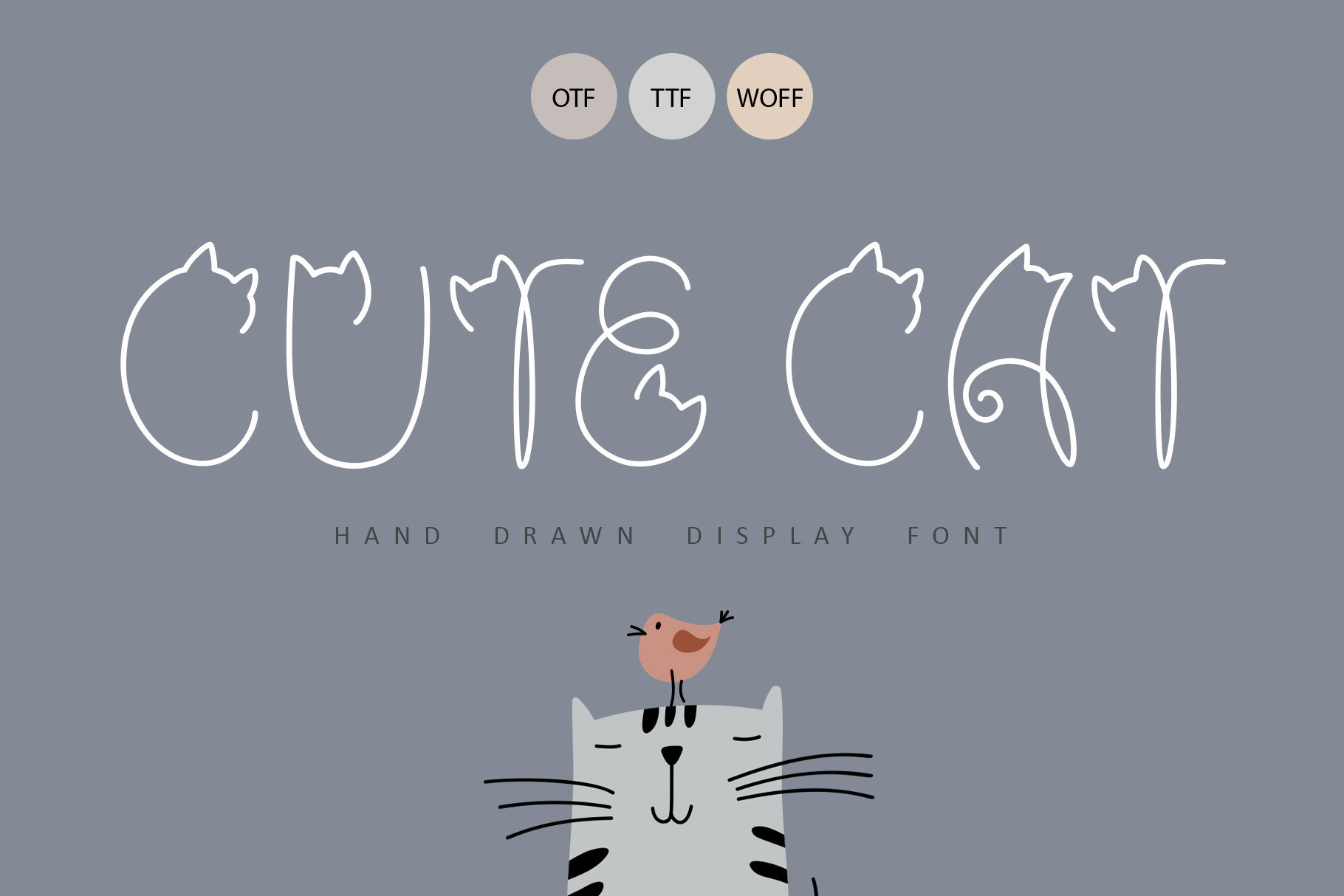
Cute Cat Hand Drawn Display Font
I'm glad to introduce you Cute Cat Hand Drawn Display Font. It is the purrfect pet font for cat lovers! The uppercase letters of this animal playful typeface are designed with cats and their tails. Use and match for even more fun. Create word art, designs, and more with this fun font! A coordinating lowercase alphabet is included as well as numbers and punctuation, so you can get creative with your projects.
The font is ideal for use in social media, a logo for pet stores, a veterinary clinic, a hotel for animals and applying valentine sublimation on a cup, t-shirt, shopper, thermos, greeting card